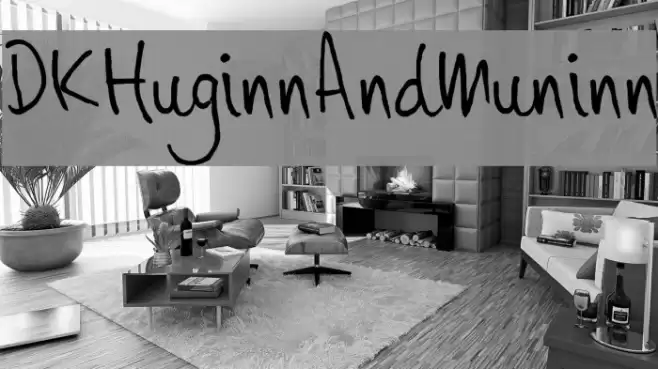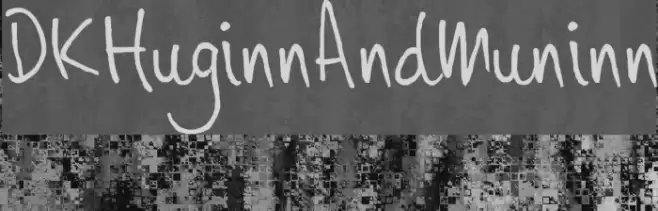
DKHuginnAndMuninn Font
DKHuginnAndMuninn Description
This font features a playful and casual handwritten style, characterized by its irregular and organic strokes. The letters have a natural flow with varying heights and widths, giving it a lively and informal appearance. The uppercase and lowercase letters maintain a consistent style, with some characters exhibiting unique quirks, such as the looped 'g' and the distinctive 'Q'. The numerals are equally playful, with a slight tilt and varying thickness that adds to the overall charm. Special characters are included, maintaining the same whimsical style, making this font suitable for creative and informal projects.
A playful, casual handwritten font with irregular strokes and a lively appearance from Uncategorized fonts.
- Proposed Projects: Ideal for greeting cards, children's books, personal blogs, and creative branding projects.
- Overall Style: Casual
- Use Case: Headlines, Informal text, Creative projects